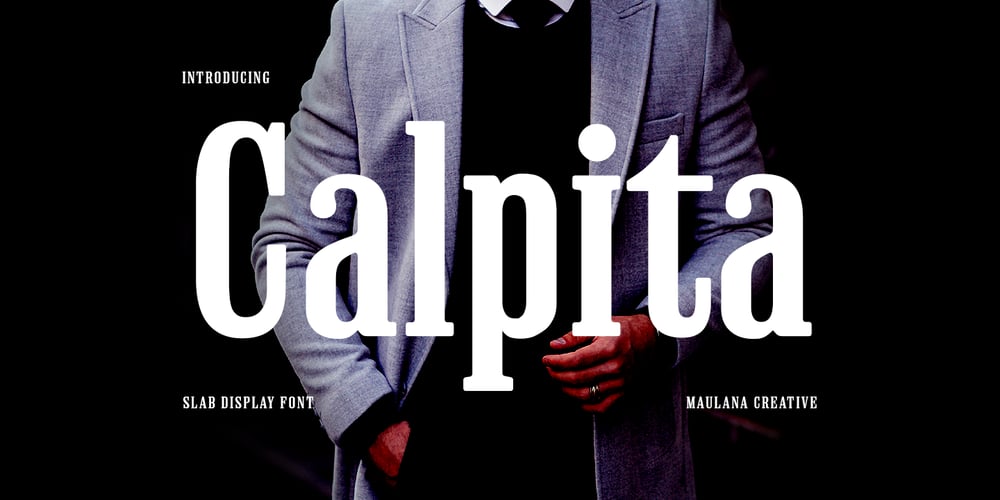
MC Calpita Font Family was designed by Gilang Maulana and published by Maulana Creative. MC Calpita contains 1 styles and family package options. Calpita is a classic inspired by historical 50s serif font. Bold stroke, fun character with a bit of ligatures and alternates. To give you an extra creative work. Calpita font support multilingual more than 100+ language. This font is good for logo design, Social media, Movie Titles, Books Titles, a short text even a long text letter and good for your secondary text font with script or serif. Make a stunning work with Calpita font. Cheers, Maulana Creative